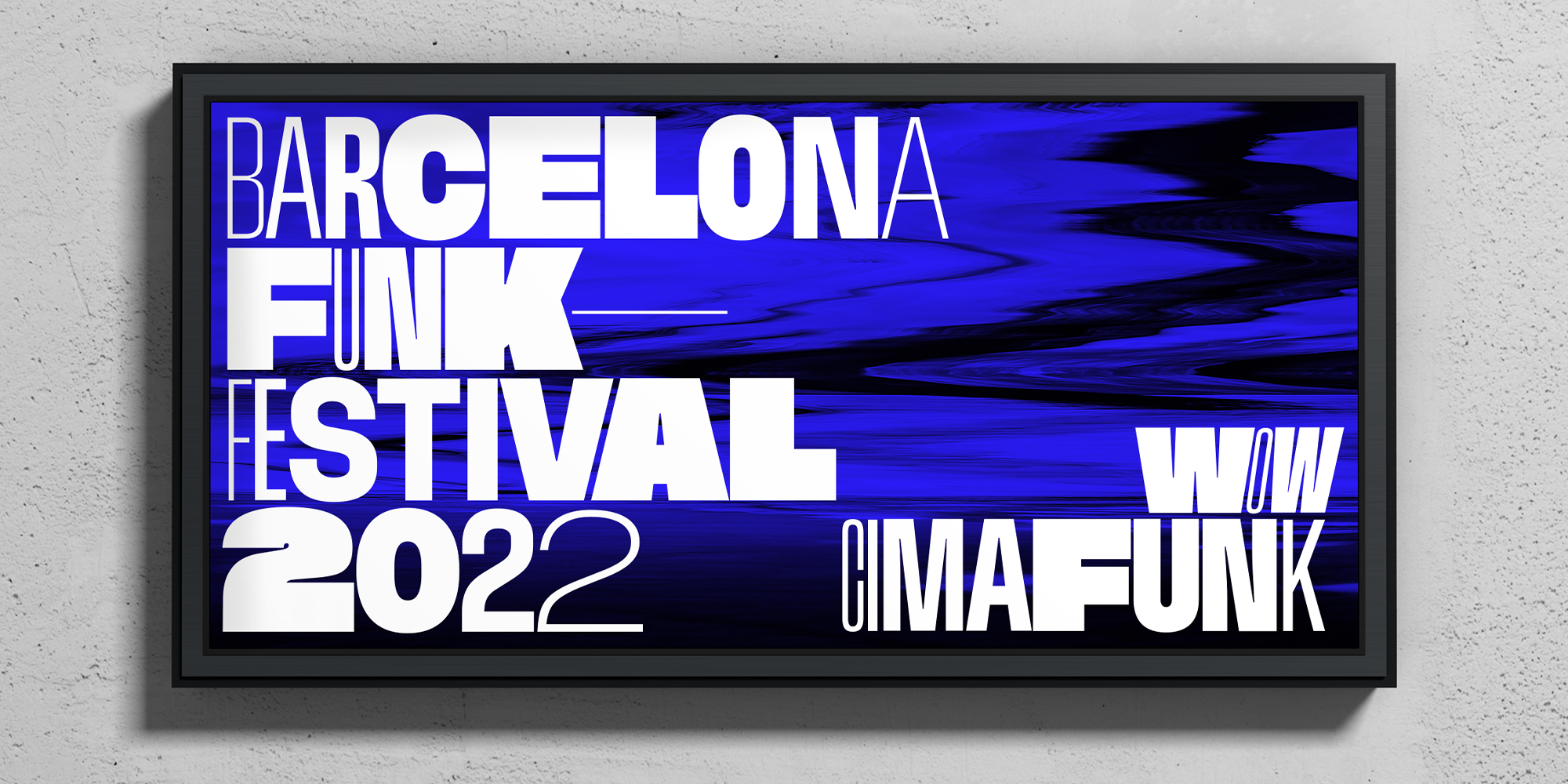
Herokid Font is perfect for children's superhero comics, youth empowerment campaigns, kids' educational games, adventure summer camps, children's entertainment venues, superhero-themed birthday parties, youth sports team branding, motivational classroom materials, children's book illustrations, and inspiring young hero programs.
Herokid Font is exciting because it captures the boundless courage and imaginative spirit of young heroes through its bold, adventure-ready letterforms that inspire confidence and bravery while delivering messages with youthful energy and superhero determination that empowers children to believe in themselves.
Herokid Font family includes Regular, Bold, Light, Super, Italic, Condensed, Power, and Adventure variations, providing designers with a complete heroic toolkit to create inspiring visual communications that celebrate childhood imagination and encourage young people to embrace their inner strength and heroic potential.
Herokid Font embodies the essence of childhood empowerment and heroic imagination, making it an essential choice for educators, entertainment companies, and youth organizations that seek to inspire confidence and courage in young people while celebrating the transformative power of imagination. This empowering typeface brings heroic energy to any design project, whether you're developing children's entertainment materials, creating educational programs about character development, or designing youth empowerment campaigns. The boldly inspiring character design of Herokid Font Free Download ensures maximum motivational impact while maintaining excellent readability across both colorful print applications and digital platforms designed to inspire young heroes and encourage positive character development.
Education industry professionals consistently select Herokid Font for schools, youth programs, and character education initiatives because of its ability to communicate empowerment, courage, and belief in children's unlimited potential. The font's heroic appearance makes it particularly effective for inspiring young audiences and creating educational experiences that build confidence and resilience.
Herokid Font excels in entertainment and recreational environments where imagination and adventure are central themes. Children's theaters, adventure camps, and youth recreation centers rely on this font to create materials that encourage active participation and heroic thinking among young participants.
The youth development and entertainment sectors have embraced Herokid Font for anti-bullying campaigns, leadership training programs, and superhero-themed educational content. Its empowering visual character helps organizations create communications that inspire children to develop strong character and believe in their ability to make positive differences in their communities, appealing to young people seeking role models and heroic inspiration.